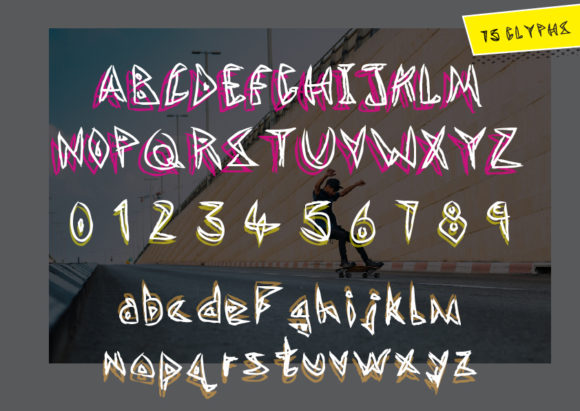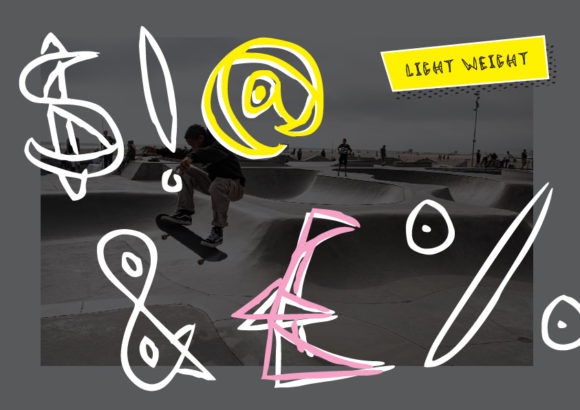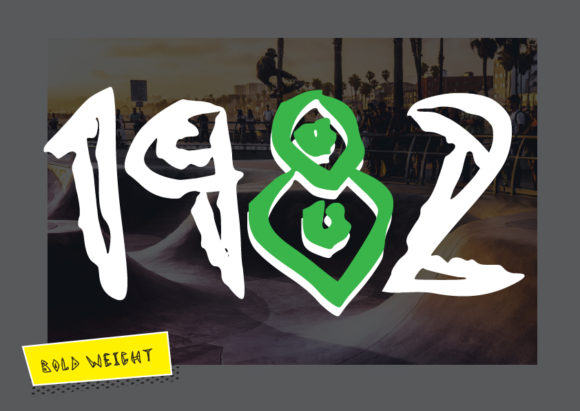
Introducing Don’t Skate Font: The Ultimate Retro Display Font for Designers and Crafters
Are you looking for a font that can add a touch of nostalgia and retro flair to your designs? Look no further than Don’t Skate Font! This rough-textured display font with a thick outline is inspired by the street style of the late 80s and is sure to make your designs stand out.
The Inspiration Behind Don’t Skate Font
Don’t Skate Font is a tribute to the iconic street style of the late 80s. During this time, streetwear and graffiti art were on the rise, and bold, eye-catching typography was a hallmark of the movement. The font’s designers drew inspiration from the era’s distinctive aesthetic, distilling its essence into a unique and recognizable typeface.
Key Features of Don’t Skate Font
- Rough-textured design: Don’t Skate Font features a deliberately rough and distressed texture, giving it a worn, vintage look that’s perfect for adding a touch of grit and authenticity to your designs.
- Thick outline: The font’s thick outline adds depth and dimension, making it stand out in any design. The outline also helps to create a sense of hierarchy, drawing attention to key elements of your composition.
- Retro feel: Don’t Skate Font is designed to evoke the spirit of the late 80s, with a bold, playful aesthetic that’s reminiscent of the era’s iconic streetwear and graffiti art.
Uses for Don’t Skate Font
Don’t Skate Font is a versatile typeface that can be used in a wide range of design applications, from:
- Logos and branding: The font’s bold, eye-catching design makes it perfect for creating logos and branding materials that need to stand out.
- Posters and flyers: Don’t Skate Font is ideal for creating bold, attention-grabbing posters and flyers that need to cut through the noise.
- Social media graphics: The font’s retro aesthetic makes it a great choice for creating social media graphics that need to stand out in crowded feeds.
- Crafting and DIY projects: Don’t Skate Font is also perfect for crafters and DIY enthusiasts looking to add a touch of personality to their projects, from handmade cards to customized t-shirts.
Tips for Using Don’t Skate Font
To get the most out of Don’t Skate Font, here are a few tips to keep in mind:
- Use it sparingly: Due to its bold, attention-grabbing design, Don’t Skate Font is best used sparingly. Use it to draw attention to key elements of your design, but avoid overusing it.
- Pair it with complementary fonts: Don’t Skate Font pairs well with simpler, sans-serif fonts that can help to balance out its bold design.
- Experiment with color: The font’s rough-textured design looks great in a range of colors, from bold and bright to muted and pastel.
Don’t Skate Font is a unique and versatile typeface that’s perfect for designers and crafters looking to add a touch of retro flair to their designs. With its rough-textured design, thick outline, and bold aesthetic, this font is sure to make your designs stand out. So why wait? Download Don’t Skate Font today and start adding a touch of nostalgia and personality to your designs!